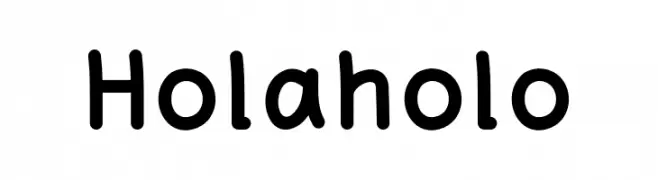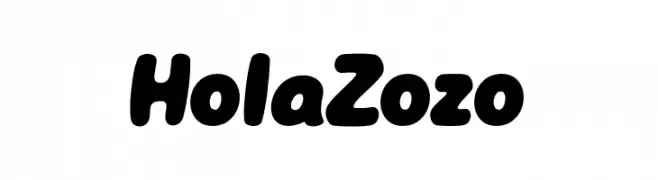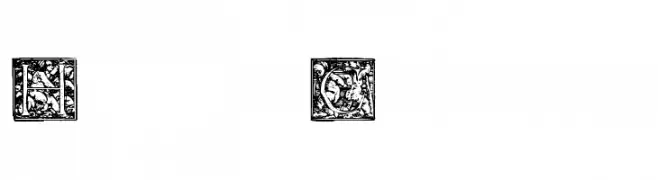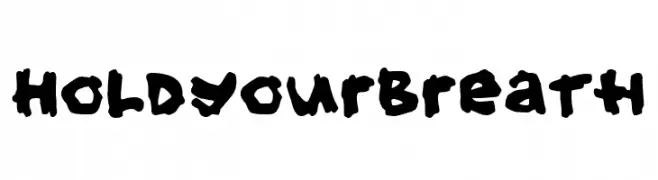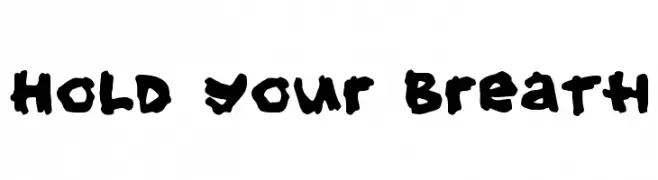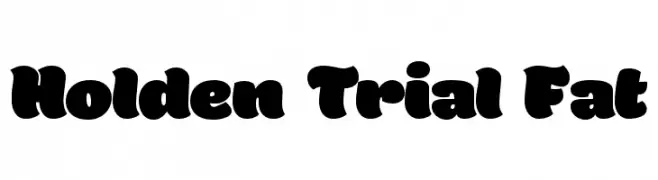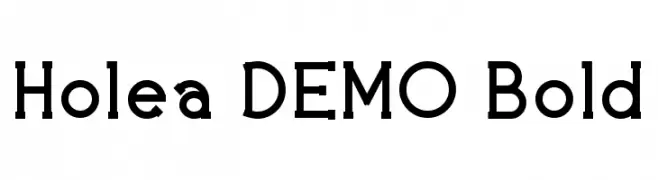
A playful, rounded font with smooth curves and a friendly vibe.
A bold, handwritten-style font with a playful and dynamic character.
A playful, bold font with rounded, bubbly characters perfect for informal designs.
An ornate and decorative font with intricate floral designs within each letter.
A playful, hand-drawn style font with rounded edges and varying stroke widths.
A bold, distressed font with a vintage, decorative style.
A bold, brush-stroke font with a dynamic and artistic style.
A bold, hand-drawn font with an expressive and dynamic style.
A bold, hand-drawn font with a playful and dynamic style.
A bold, playful font with thick, rounded characters and a friendly aesthetic.